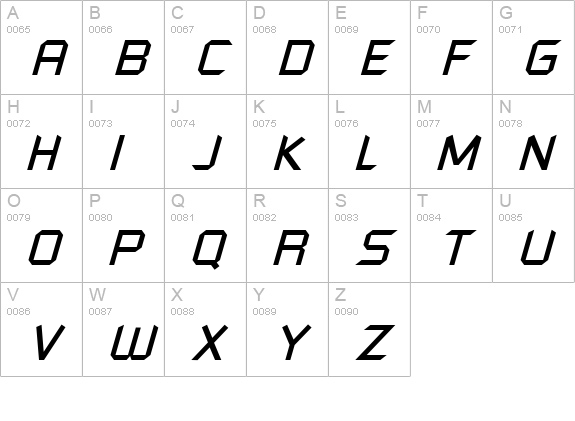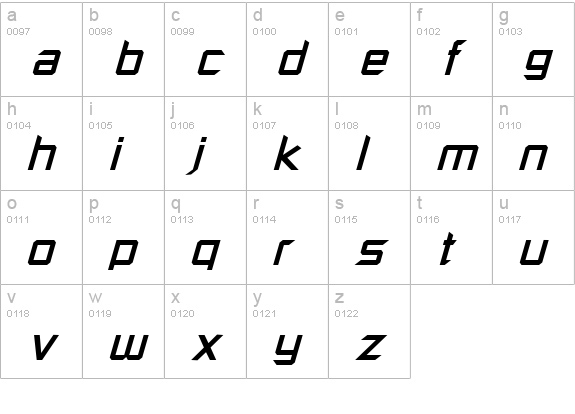
Russell Italic is a distinctive, italic variant in the Russell typeface family \xE2\x80\x94 well suited to design and typography projects.
Russell Italic font is a stylish and elegant typeface designed to add a touch of sophistication to your projects. With its sleek slanted design, Russell Italic exudes a sense of modernity and flair. The graceful curves and distinctive letter shapes make this font perfect for a variety of design applications, from branding to editorial design. What's more, Russell Italic is completely free to download at FontsMarket.com. This means you can access this beautiful font at no cost, making it a valuable addition to your font library. Don't miss out on the opportunity to elevate your designs with the timeless appeal of Russell Italic font.